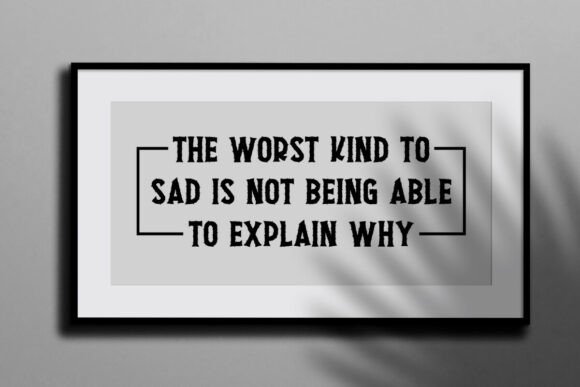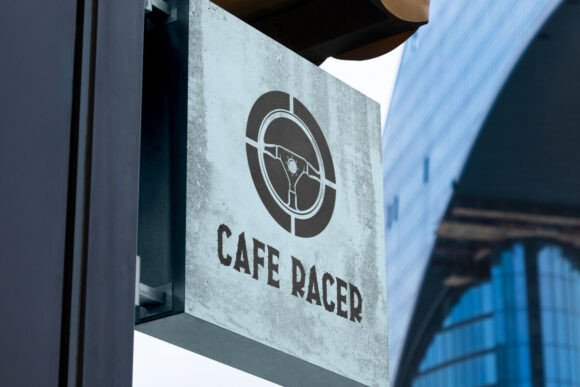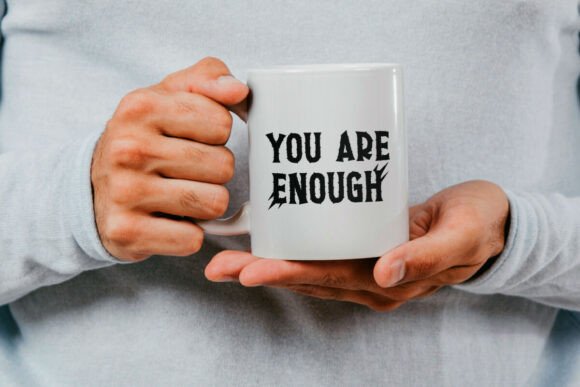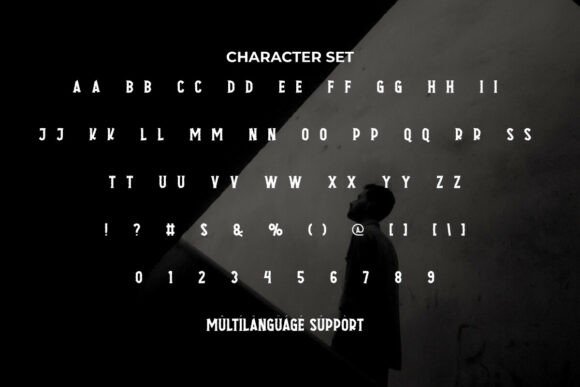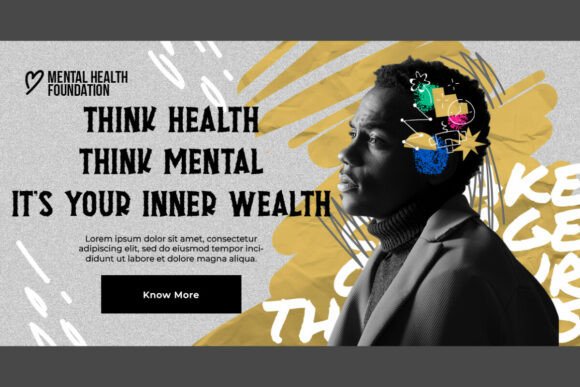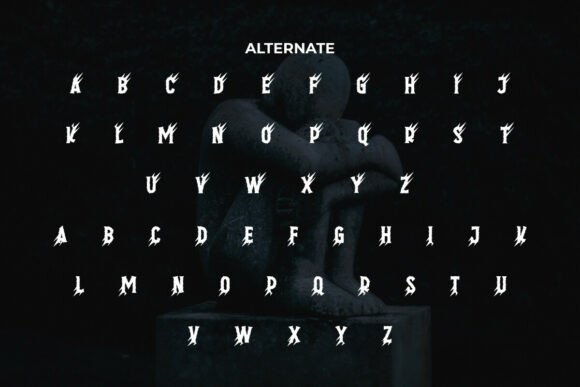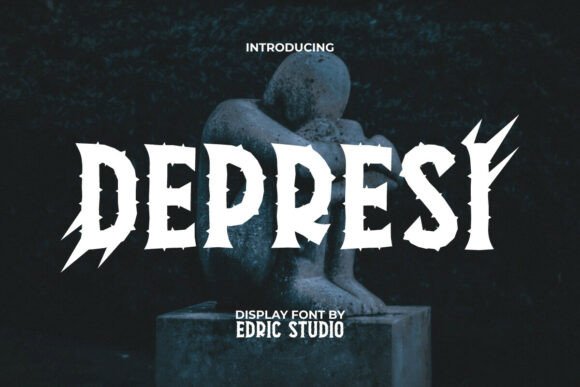
Unleash the Dark Side of Design with Depresi Font
Are you ready to add a touch of darkness and mystery to your designs? Look no further than Depresi, a haunting gothic display font that’s sure to make a bold statement. With its sharp, thorn-like serifs and imposing silhouette, Depresi is the perfect choice for designers who want to create high-impact posters, horror-themed branding, and aggressive apparel graphics that demand attention.
The Unique Characteristics of Depresi Font
Depresi is more than just a font – it’s a visual manifestation of intensity. Its vertical dominance and viciously pointed terminals evoke a sense of drama and mystery, making it perfect for heavy metal album covers, dark fantasy book titles, and any project that needs to communicate strength through a dark, melancholic lens.
One of the standout features of Depresi is its subtle texture within its heavy strokes, giving it a weathered, industrial feel that’s perfect for monochromatic designs. This unique texture adds depth and character to the font, making it look incredible in a variety of applications.
Design Applications for Depresi Font
Depresi is a versatile font that can be used in a variety of design applications, including:
• High-impact posters: Depresi’s bold, attention-grabbing design makes it perfect for posters that need to stand out.
• Horror-themed branding: Depresi’s dark, menacing vibe is perfect for horror-themed branding, from logos to packaging.
• Aggressive apparel graphics: Depresi’s bold, industrial feel makes it perfect for apparel graphics that need to make a statement.
• Heavy metal album covers: Depresi’s dark, intense design makes it perfect for heavy metal album covers that need to convey a sense of power and aggression.
• Dark fantasy book titles: Depresi’s mysterious, evocative design makes it perfect for dark fantasy book titles that need to transport readers to another world.
The Technical Details of Depresi Font
Depresi font is engineered with the following technical details in mind:
• PUA encoding: Depresi includes PUA encoding, making it easy to access all special characters and decorative elements.
• Sharp, rhythmic spacing: Depresi’s sharp, rhythmic spacing creates a “barbed wire” visual effect that’s both beautiful and intimidating.
• Monolinear design: Depresi’s monolinear design makes it perfect for use in a variety of design applications, from posters to apparel graphics.
Why Designers and Crafters Love Depresi Font
Depresi font has quickly become a favorite among designers and crafters who need a bold, attention-grabbing font for their projects. Here are just a few reasons why:
• Unique design: Depresi’s unique design makes it stand out from other fonts on the market.
• Versatility: Depresi can be used in a variety of design applications, from posters to apparel graphics.
• Easy to use: Depresi includes PUA encoding, making it easy to access all special characters and decorative elements.
• High-quality: Depresi is a high-quality font that’s designed to deliver exceptional results in a variety of design applications.
Get Ready to Make a Statement with Depresi Font